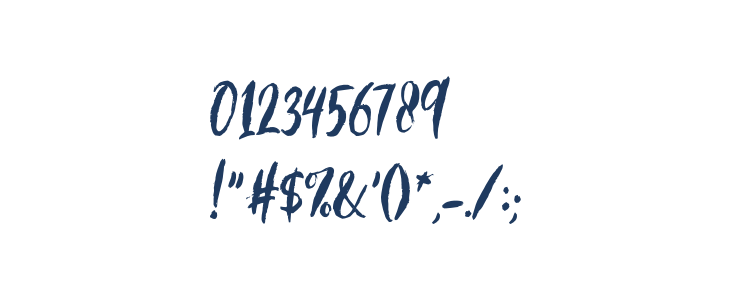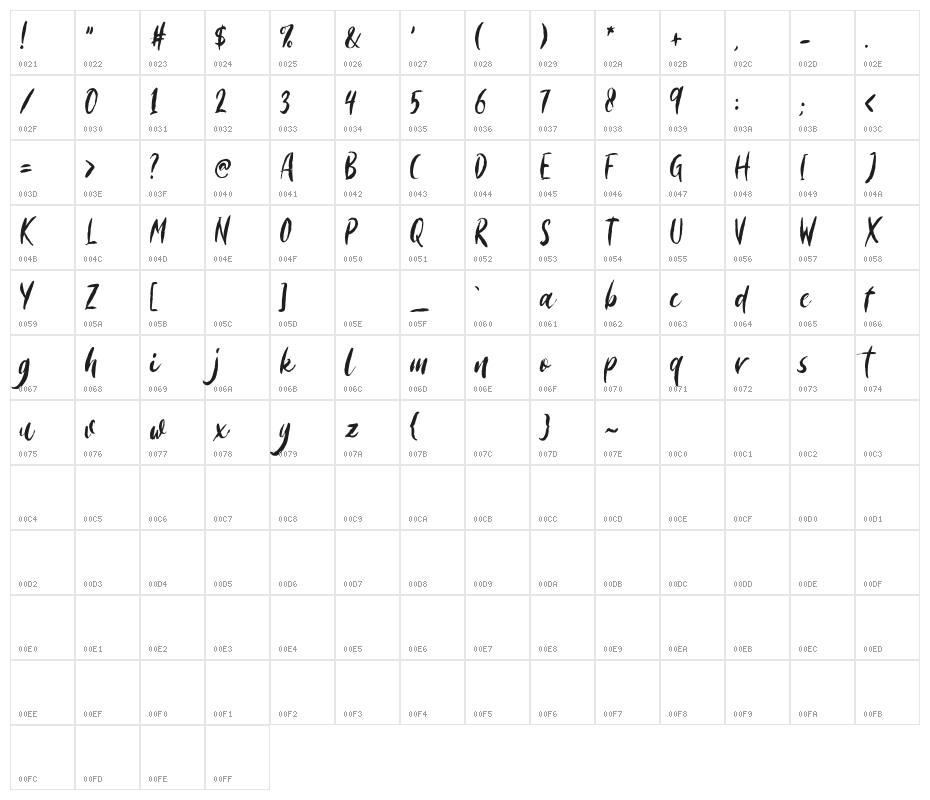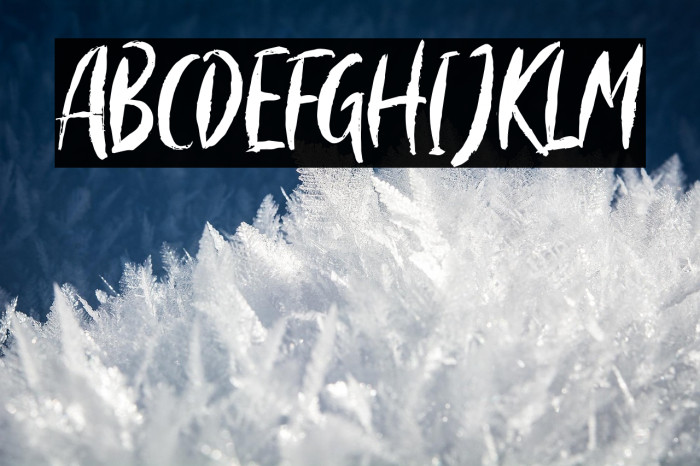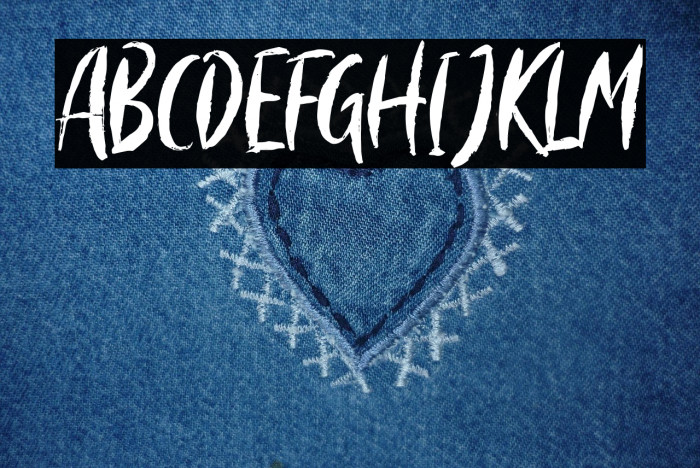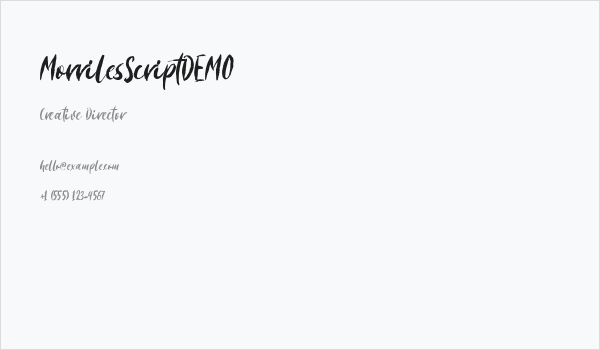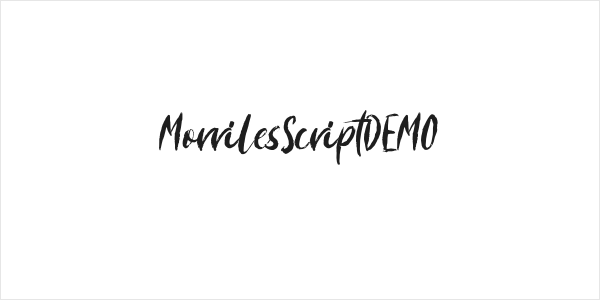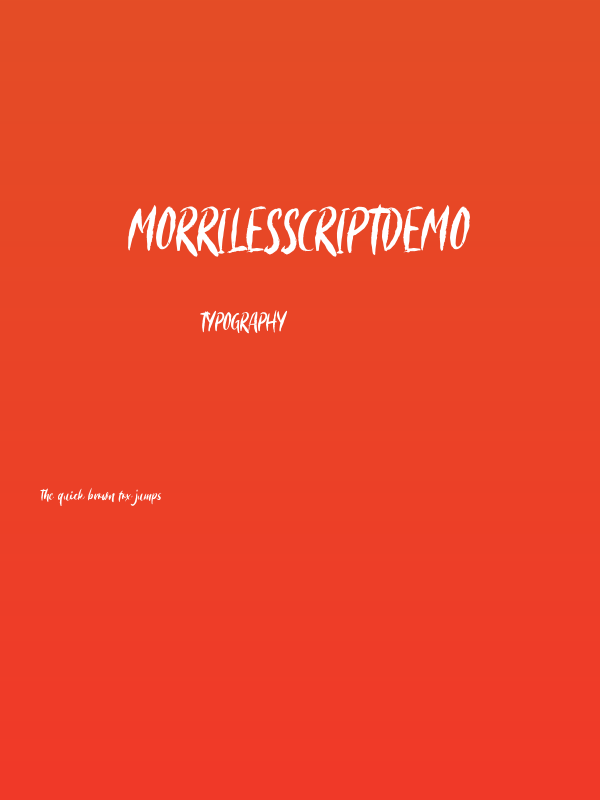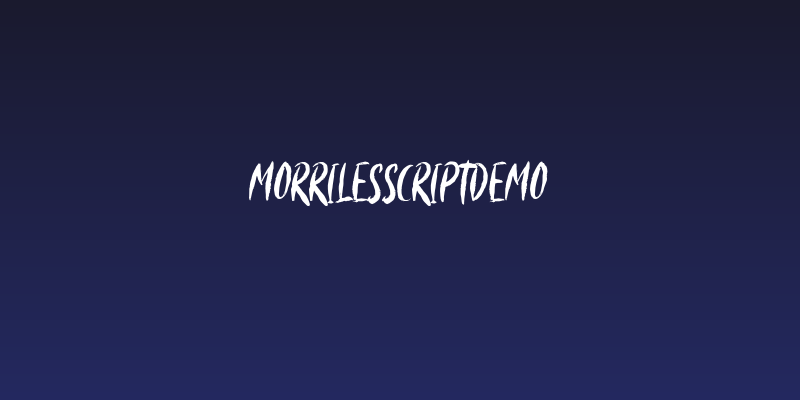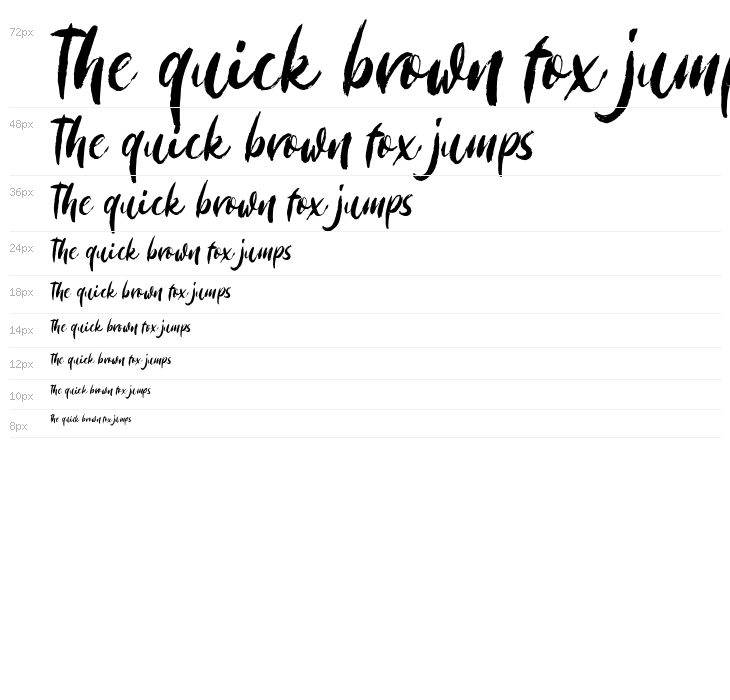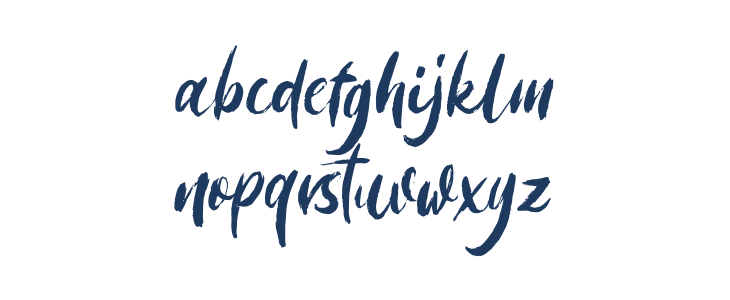
MorrilesScriptDEMO Font
MorrilesScriptDEMO Description
This font exudes a dynamic and expressive style, characterized by its brush-like strokes and fluid motion. The letters have a hand-painted appearance, with varying thickness that adds a sense of movement and energy. The uppercase and lowercase letters maintain a consistent flow, while the numbers and special characters complement the overall aesthetic. The font's organic and artistic nature makes it ideal for projects that require a personal touch or a creative flair.
| Use Case | Logos, Headlines, Artistic designs |
| Proposed Projects | Ideal for creative projects such as posters, invitations, branding, and artistic designs that require a personal and expressive touch. |